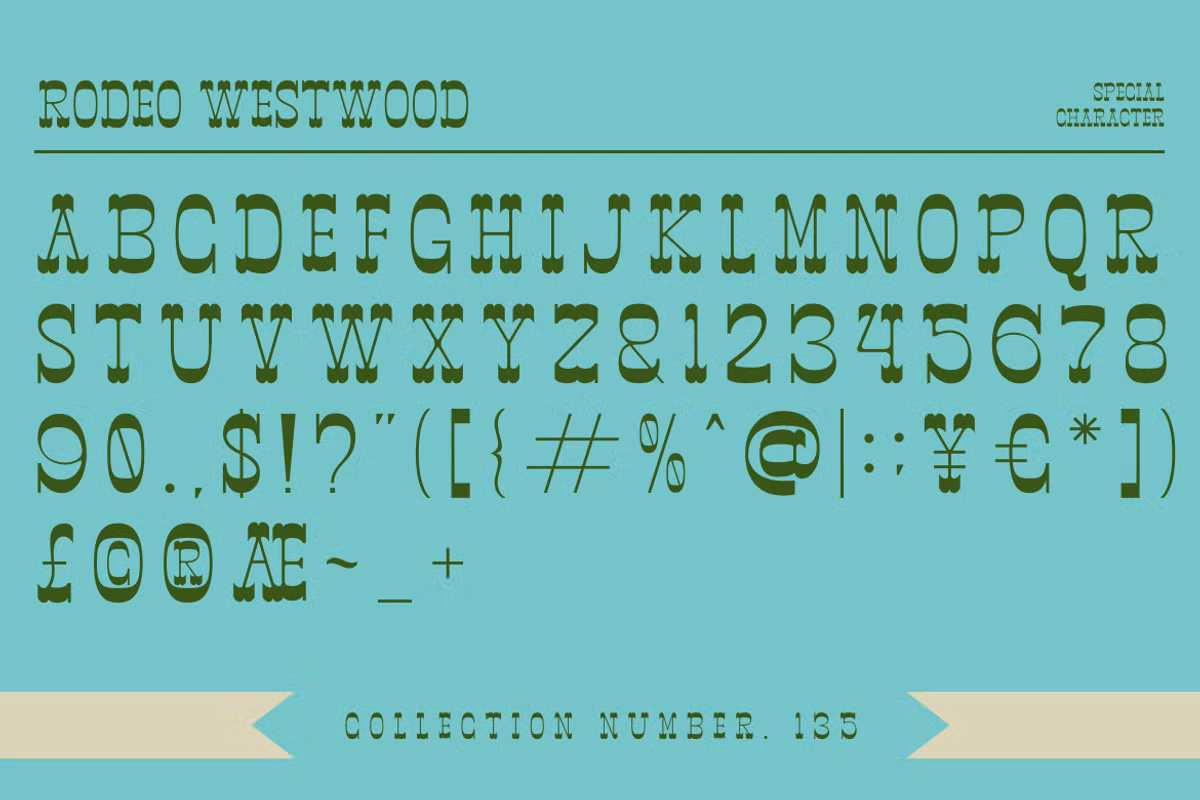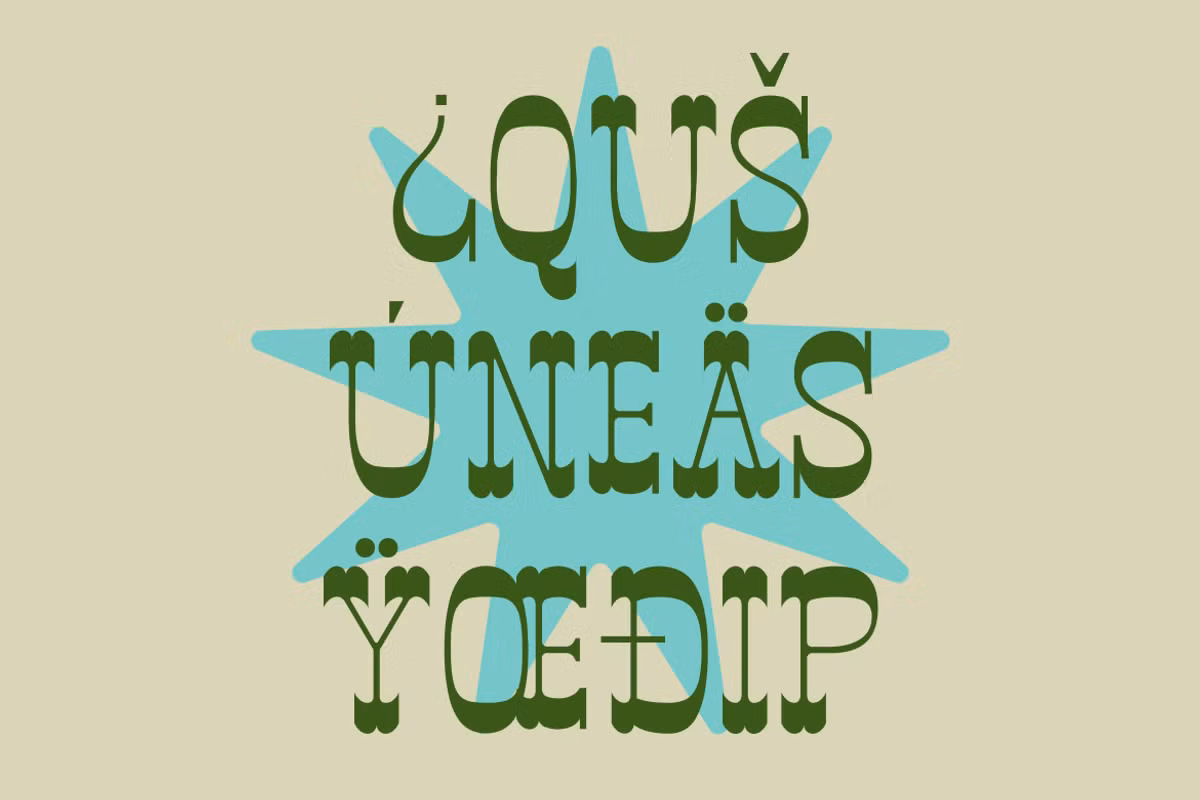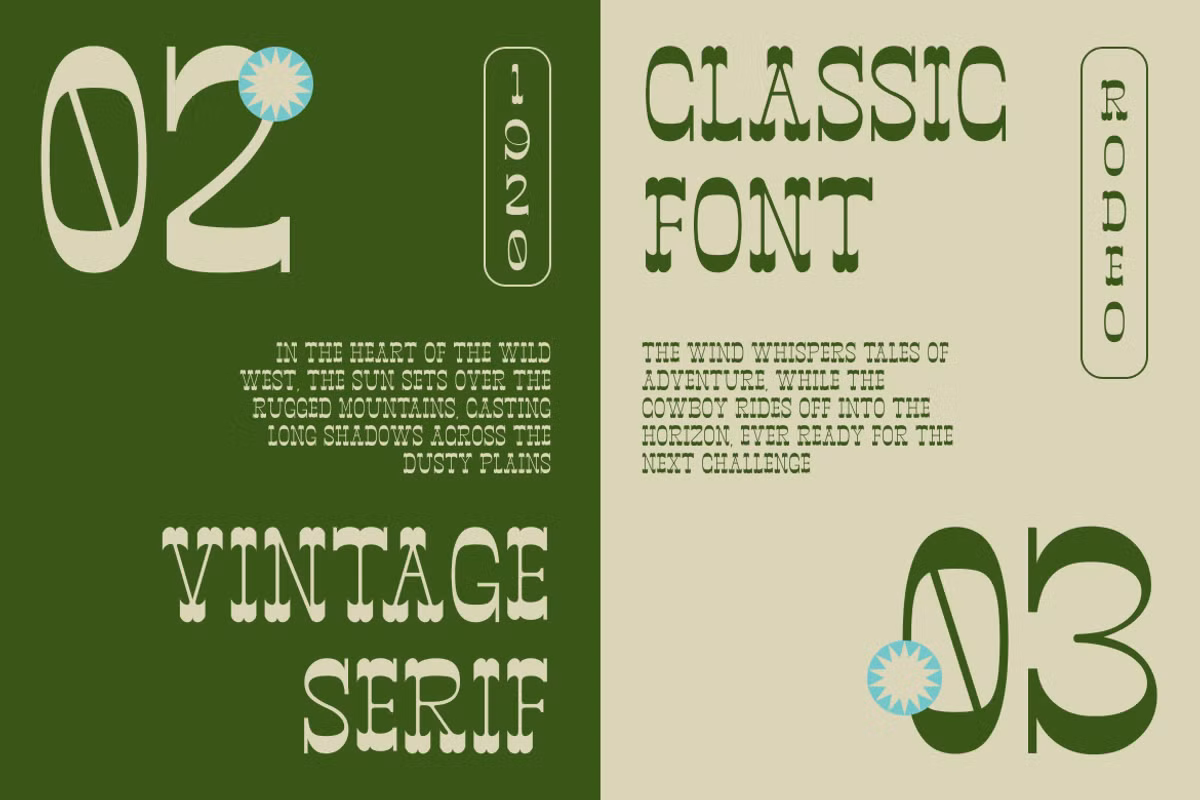
Rodeo Westwood Slab Serif Font: Rugged Typeface for Vintage Design
Rodeo Westwood Slab Serif Font
Rodeo Westwood Slab Serif Font: Rugged Typeface for Vintage Design
Introduction to Rodeo Westwood
Rodeo Westwood is a font that looks like it’s from the old west. It’s got a bold and rugged feel to it, with lots of details that make it look like vintage signs from a rodeo. This font is great for projects that need a touch of the wild west, and it’s easy to read too. The people who made it wanted to capture the spirit of the american frontier, and they did a great job.
If you’re looking for a font that’s a little bit country, a little bit wild, and totally authentic, Rodeo Westwood is a great choice. It’s perfect for designs that need a bit of a cowboy feel, and it’s sure to make your project stand out.
A vintage western sign showcasing Rodeo Westwood font
Example of Rodeo Westwood in use on signage.
Design Style of Rodeo Westwood
Rodeo Westwood’s design takes a lot from old western styles. It has a classic look with thick, straight lines, kind of like the signs you’d see at old rodeos. This makes you feel like you’re back in the days of the American frontier. Some of the key things about this font are:
• Bold Slab Serifs: These serifs provide a strong visual impact, ensuring that your text stands out in any design.
• Decorative Spur-like Terminals: Each character is adorned with unique terminals that evoke the authentic feel of cowboy typography.
• Ornamental Details: Vintage ornamental elements reflect the aesthetics of frontier life and saloons, adding a historical dimension to your designs.
Rodeo Westwood has a balanced look that keeps it easy to read, even when it’s used in a big, showy way. This makes it a great choice for lots of different uses, and it still has a tough, rugged feel to it.
Close-up of Rodeo Westwood font details
Detailed view of Rodeo Westwood’s unique features.
Character Sets and Features
Some of the standout features of Rodeo Westwood include:
• Screen-Optimized Kerning: This ensures that your text looks great on responsive web designs, adapting seamlessly across different devices.
Best Use Cases for Rodeo Westwood
Rodeo Westwood is particularly well-suited for projects that celebrate western heritage and vintage aesthetics. Here are some of the best use cases for this distinctive typeface:
• Rodeo Event Posters: Capture the excitement and spirit of rodeo events with eye-catching posters that draw attention.
• Western-themed Branding: Create memorable identities for brands that resonate with a rustic, frontier vibe.
• Rustic Packaging: Ideal for packaging designs related to whiskey, BBQ products, or craft goods that emphasize heritage.
• Vintage Signage: Perfect for creating authentic retro signage that reflects the charm of old saloons and western towns.
• Country Music Posters: Utilize Rodeo Westwood for promoting country music events, adding a touch of authenticity to your graphics.
• Cowboy Merchandise: This font is an excellent choice for branding cowboy-themed products, from apparel to accessories.
Sample of Rodeo Westwood on a country music poster
Rodeo Westwood used in a country music poster design.
If you want to give your project a real Wild West feel, Rodeo Westwood is the perfect font to use. It’s great for making posters for a local rodeo or creating a brand that looks like it’s from the old west. This font will help you get the authentic look you’re going for, whether it’s for a rodeo or just a fun, vintage-inspired design.
Pairing Suggestions for Rodeo Westwood
When you’re looking to make your designs really stand out, combining Rodeo Westwood with other fonts that complement it can make a big difference. You can create some really interesting contrasts and layouts that work well together. Here are a few ideas for pairing fonts with Rodeo Westwood:
• Montserat: This modern sans-serif font can balance the ruggedness of Rodeo Westwood, providing a clean and contemporary feel.
By using Rodeo Westwood in your design work, you can bring a bit of the Wild West to life and take your projects to a whole new level. It’s a handcrafted slab serif font that’s full of character and charm, making it ideal for designers who want to add some extra personality to their work. Whether you’re working on a project that needs a bold and adventurous feel or just want to add some vintage flair to your designs, Rodeo Westwood is the perfect choice. So why not saddle up and give it a try – you never know where it might take you!